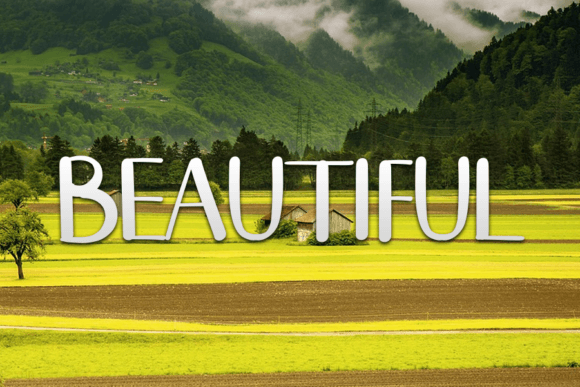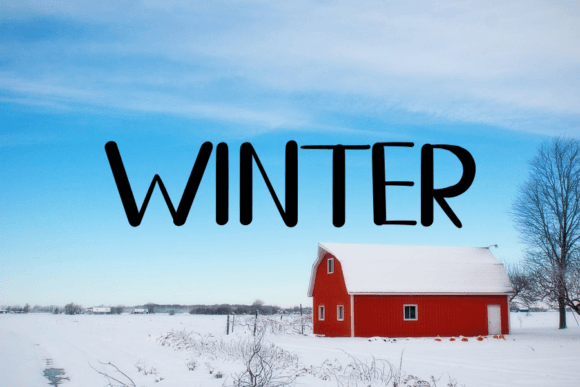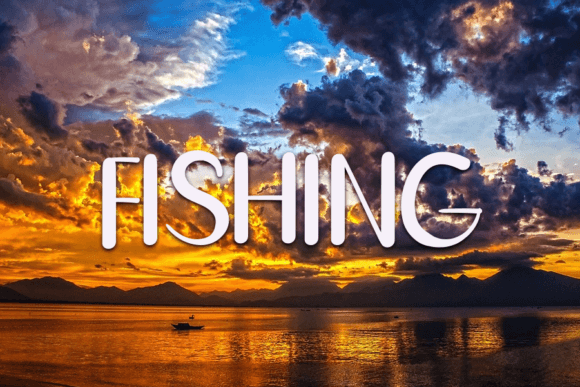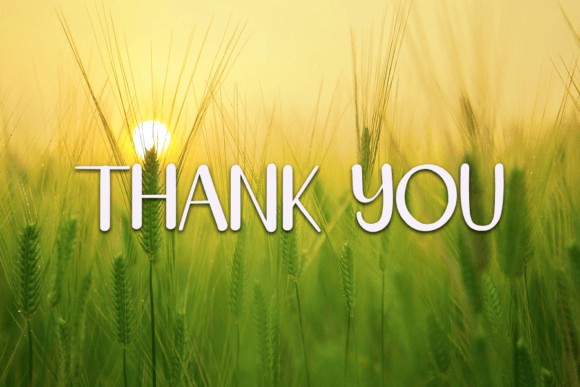
Introducing Farmhouse Font: The Perfect Handwritten Companion for Designers and Crafters
Are you on the hunt for a font that adds a touch of warmth, friendliness, and playfulness to your designs? Look no further than Farmhouse Font! This delightful handwritten font is making waves in the design community, and for good reason. Whether you’re a professional designer, a crafter, or simply someone who loves to dabble in digital design, presentations, or creating greeting cards, Farmhouse Font is sure to become your new go-to.
The Charm of Farmhouse Font
Farmhouse Font boasts a unique, handcrafted feel that’s perfect for a wide range of projects. Its letters are carefully crafted to exude a sense of approachability and charm, making it an excellent choice for designers and crafters who want to add a personal touch to their work. From rustic crafts to modern digital designs, Farmhouse Font brings a level of warmth and personality that’s hard to achieve with more traditional fonts.
One of the standout features of Farmhouse Font is its incredible versatility. It’s a font that can seamlessly transition from one project to the next, whether you’re working on:
- Crafts: Add a personal touch to your DIY projects, such as handmade cards, scrapbooking, and other paper crafts.
- Digital Design: Use Farmhouse Font to create engaging social media graphics, blog headers, and website elements that pop.
- Presentations: Elevate your presentations with a font that’s both professional and playful.
- Greeting Cards: Create heartfelt, handmade-style greeting cards for any occasion.
Why Farmhouse Font Stands Out
So, what sets Farmhouse Font apart from other handwritten fonts on the market? Here are just a few reasons why designers and crafters are falling in love with this font:
- Unique Character: Each letter is carefully designed to have its own character, ensuring that your text never looks boring or monotonous.
- Ease of Use: Farmhouse Font is incredibly easy to read and use, making it perfect for both digital and print projects.
- Highly Versatile: As mentioned earlier, Farmhouse Font can be used for a wide range of projects, from crafts to digital designs.
- Fun and Friendly: The overall feel of Farmhouse Font is fun, friendly, and approachable, making it perfect for projects that require a personal touch.
Now that you’re excited about Farmhouse Font, here are some tips to help you get the most out of this amazing font:
- Pair it with Other Fonts: Don’t be afraid to experiment with pairing Farmhouse Font with other fonts to create interesting contrasts.
- Play with Sizes: Use different sizes to create visual hierarchy and add emphasis to certain parts of your text.
- Add Decorations: Consider adding decorative elements, such as flourishes or borders, to give your text an extra special touch.